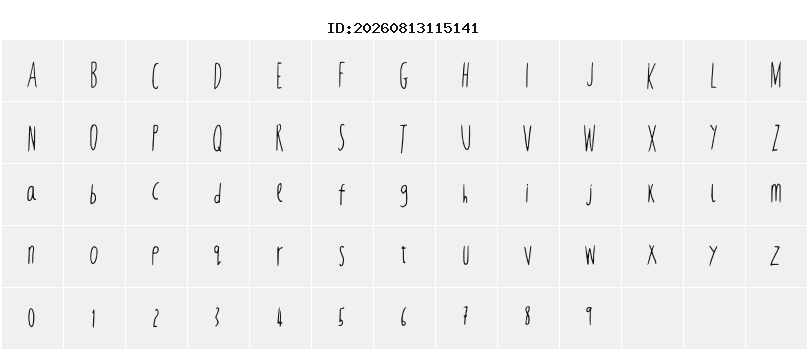
RedBalloon2 Preview
• Font Name: RedBalloon2
• Font ID: FontForge 2.0 : RedBalloon2 : 11-1-2014
• Full Font Name: RedBalloon2
• PostScript Name: RedBalloon2
• Character Count: 140
About RedBalloon2.ttf
RedBalloon2.ttf is a modern, elegant sans-serif font designed for ultimate readability and visual harmony. Perfect for branding, headlines, web design, and print materials.